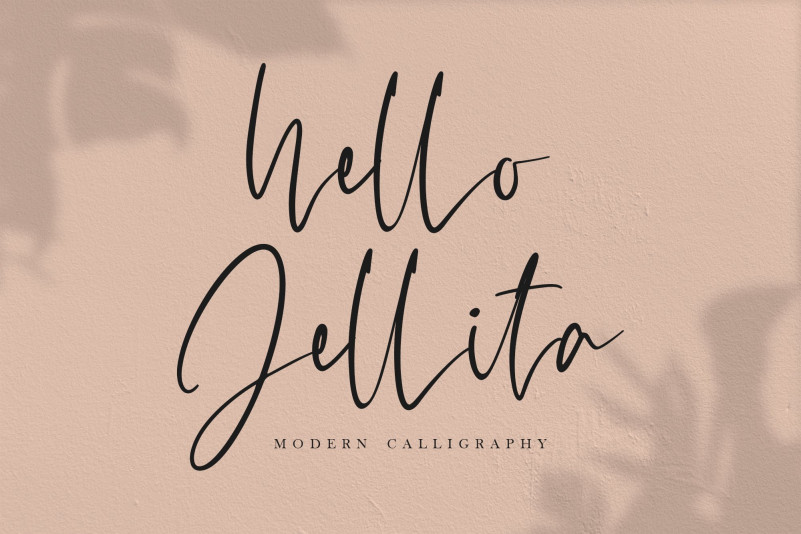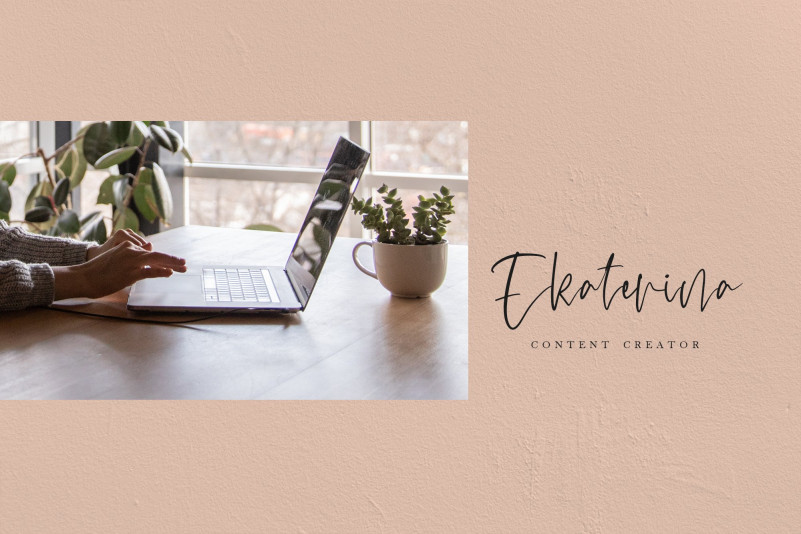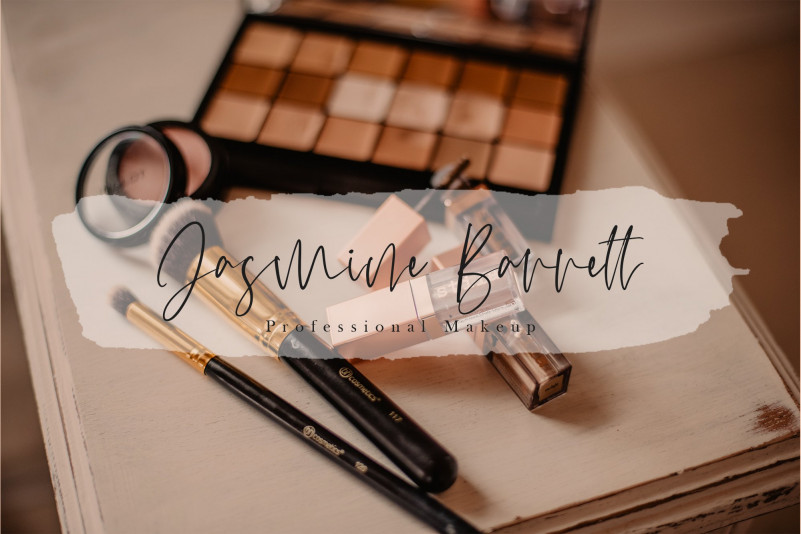
Hello Jellita Font
hello Jellita is a natural handwritten font, this font Is perfect for logo, invitation, stationery, wedding designs, social media posts, advertisements, product packaging, product designs, label, photography, watermark, special events or anything.
hello Jellita comes with full set of uppercase and lowercase letters, multilingual symbols, numerals, punctuation.